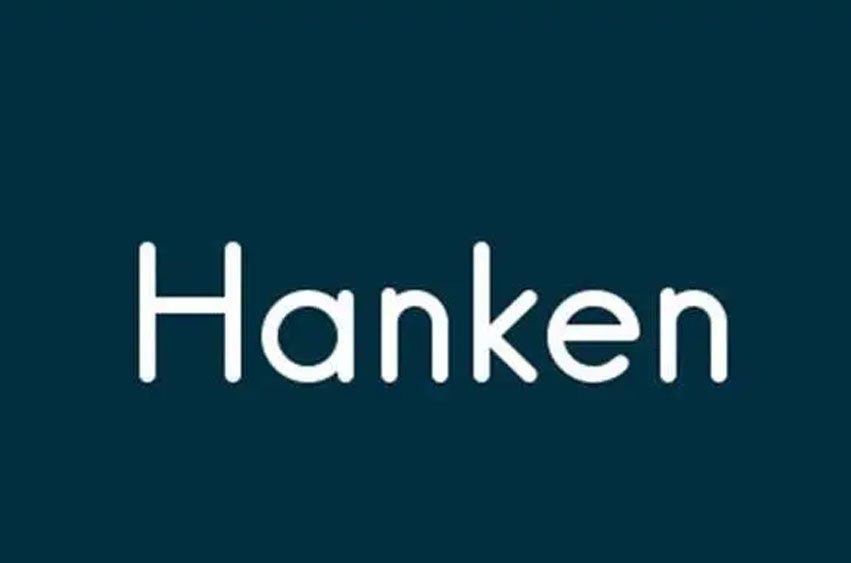
Hanken Font
Hanken Font is a simple and rounded sans serif font designed to be modern and minimalist, suitable for a range of uses, from logo design to posters.
Hanken font is composed of two families, Book and Light. Combining both weights will offer optimal performance from Hanken font.